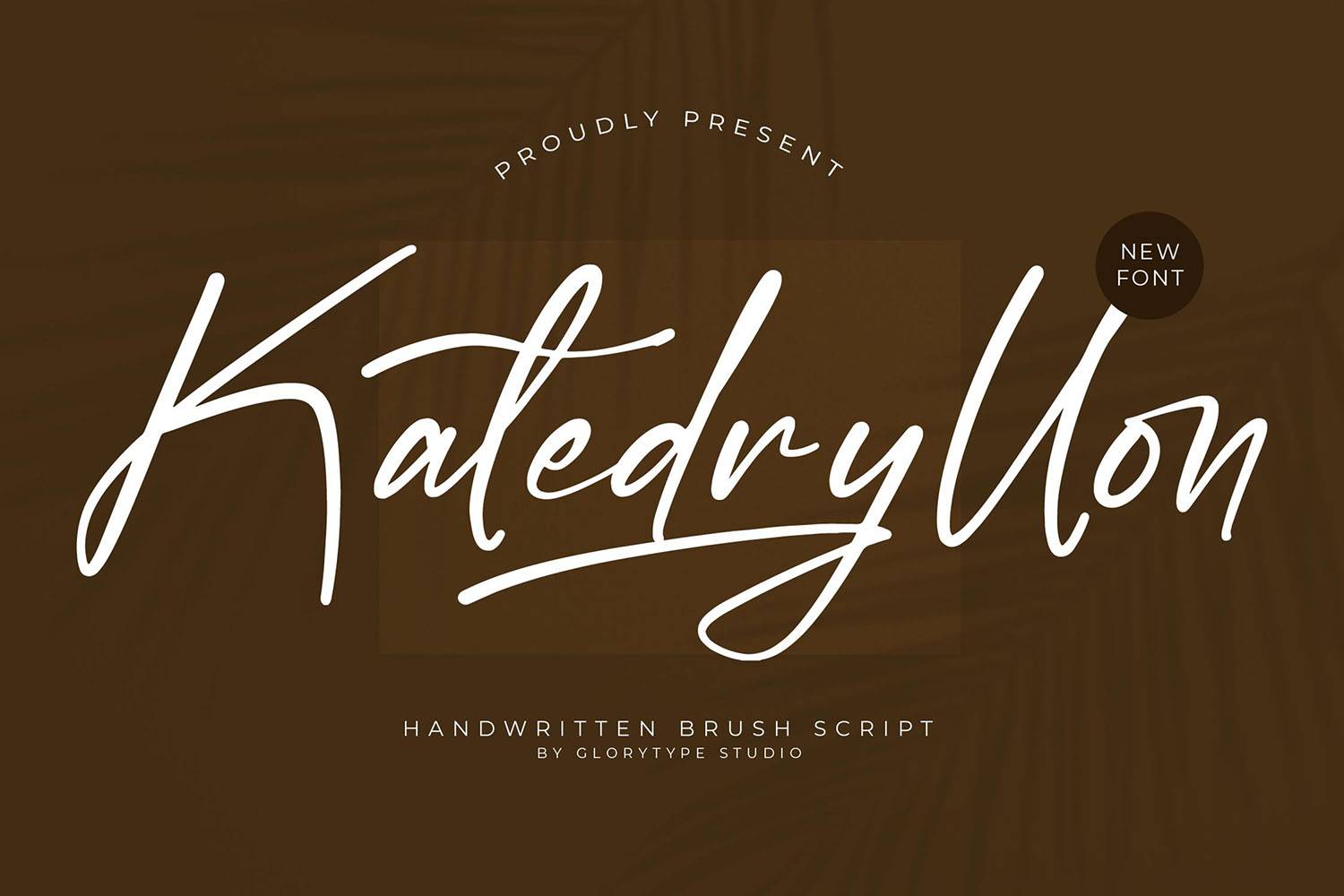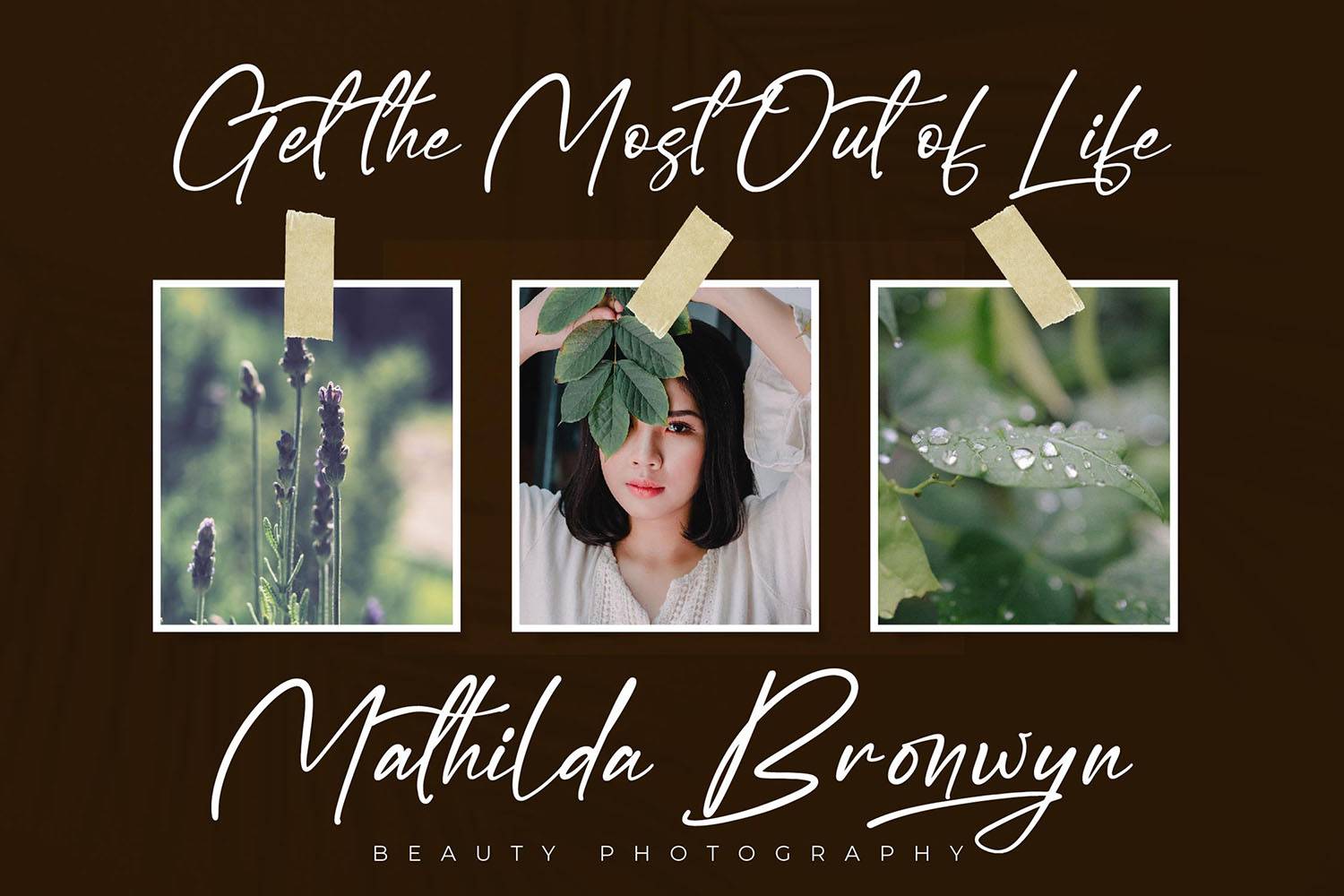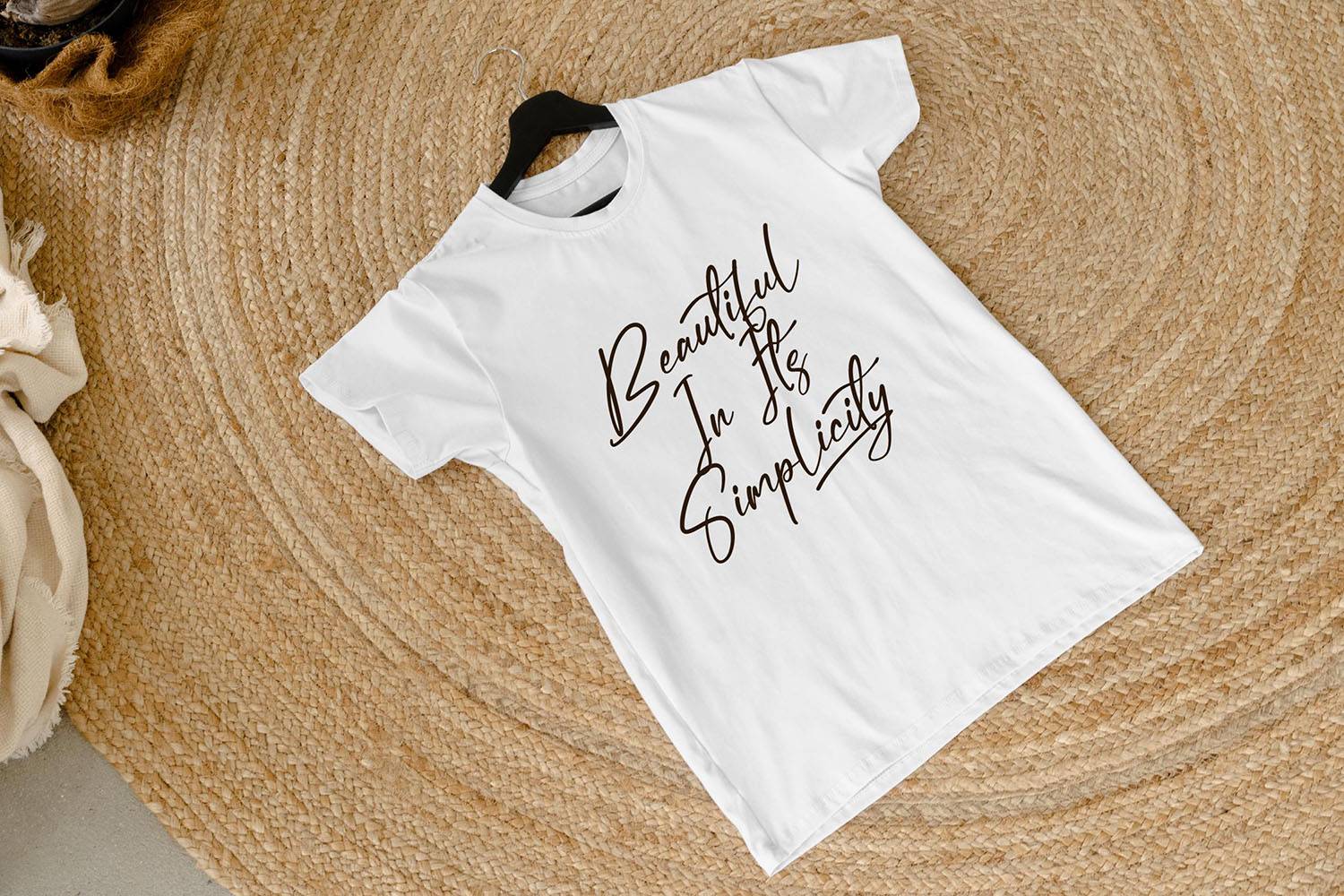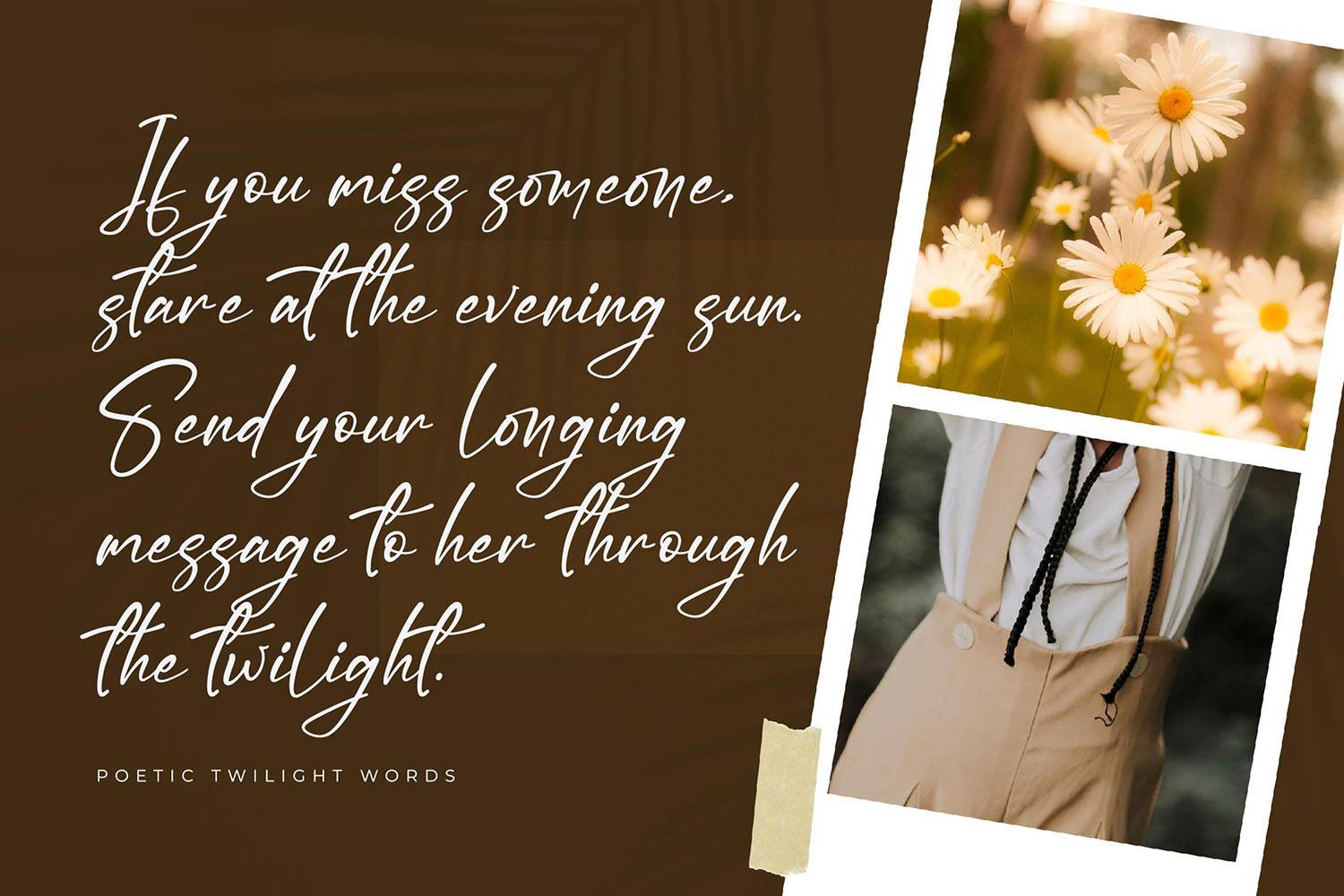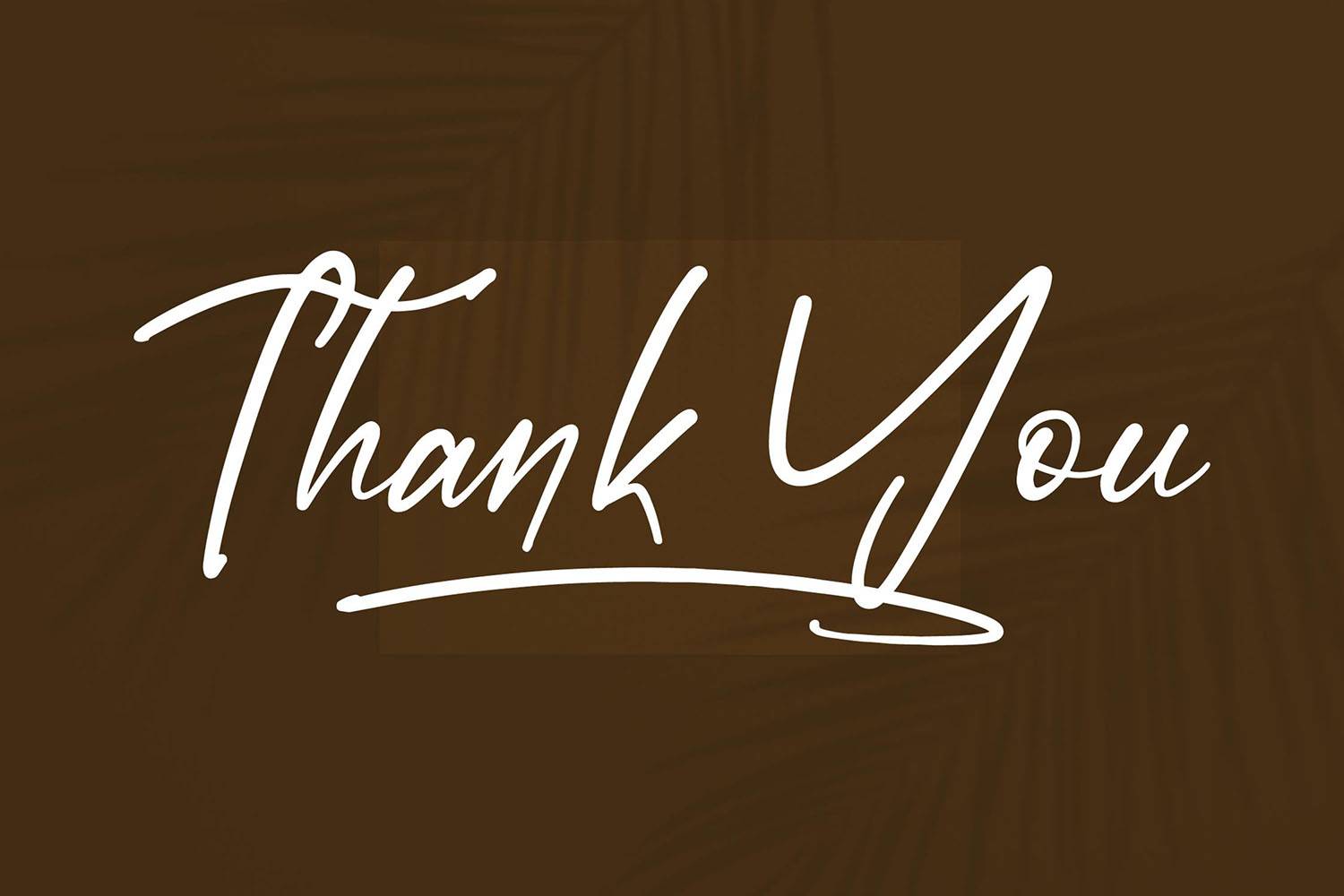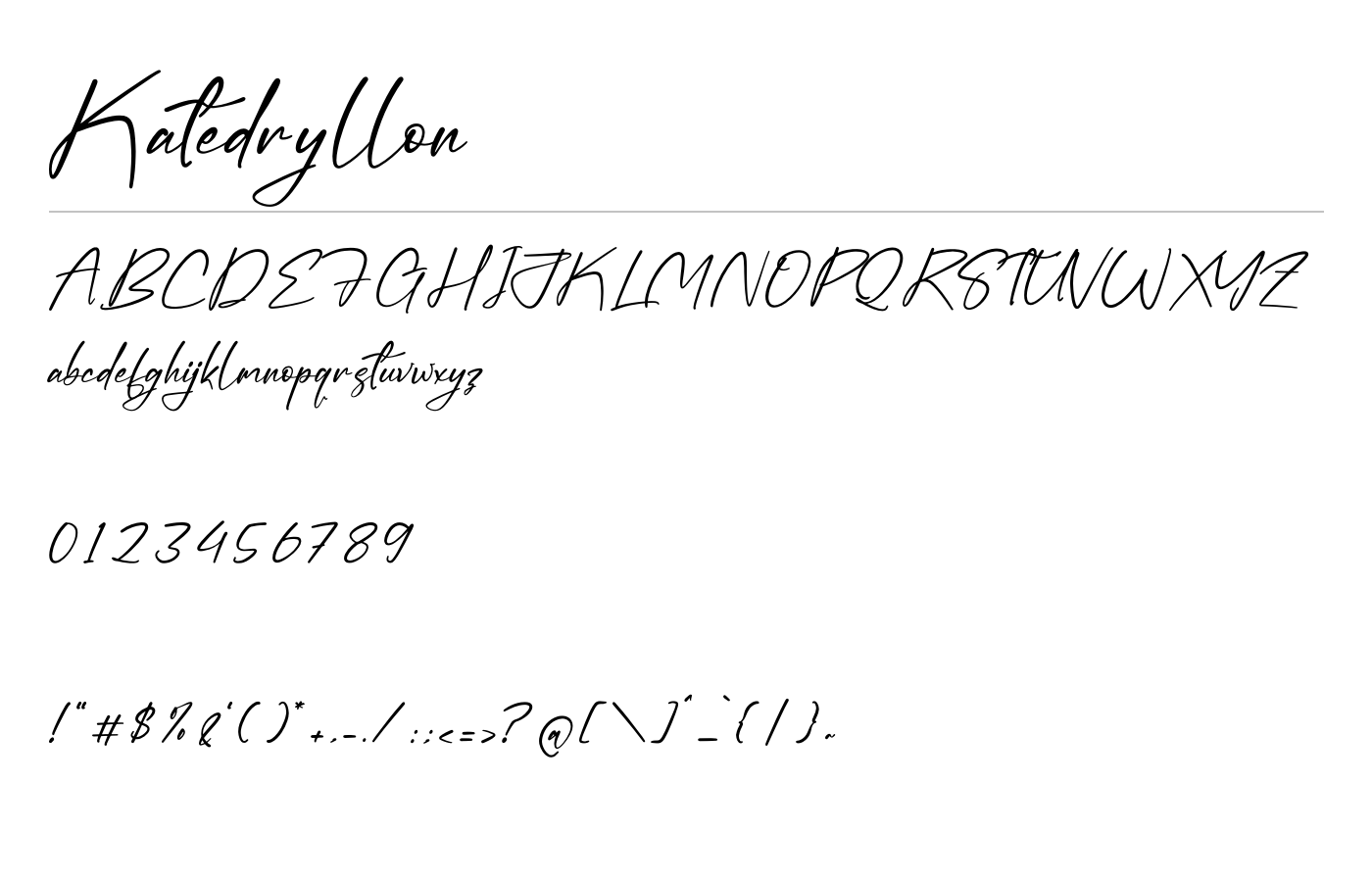
Katedryllon is an elegant, handwritten script font characterized by its slender, slightly angled strokes that create a casual yet refined look. Its tall x-height, single-story letterforms, and smooth, flowing lines make it well-suited for personal branding, invitations, and stylish editorial use where a touch of warmth and sophistication is desired. This font works beautifully in headlines and logos, bringing a modern and approachable feel to any design.
Katedryllon Font
About Katedryllon Font